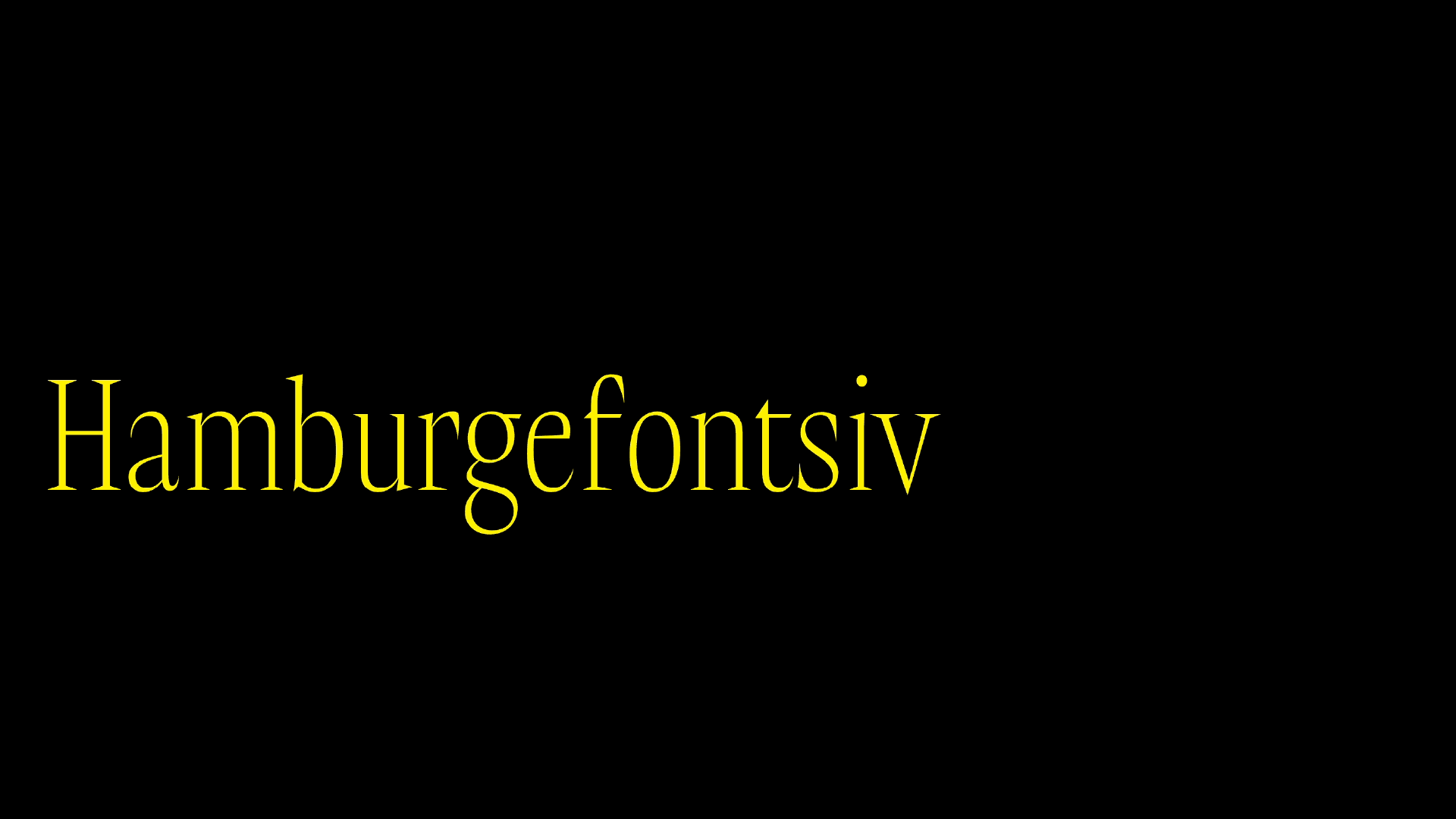
Immoment
Immoment was the result of an exercise in creating a contemporary serif typeface, and pays homage to the rich historical heritage of the Père Lachaise Cemetery in Paris, renowned for its remarkable collection of gravestones and mausoleums.
The typeface captures the timeless essence of the inscriptions found on the weathered gravestones, reflecting the craftsmanship and reverence of the past, while evolving into something more contemporary through experimentation with stroke endings and sharp serifs. This typeface embodies a fascinating juxtaposition, where the weight of history coexists with the meaning of its name, which denotes unimportance.
Immoment's significance extends beyond its historical inspiration. Its name signifies that the final outcome was not the primary intention of its creation. Instead, the true essence lies in the transformative process that created it—a journey of exploration and learning within the TypeParis program.
Immoment embraces the notion that the creative process itself holds immense value. It celebrates the dedication, collaboration, and experimentation that transpired throughout the program, allowing the typeface to evolve. The unimportance of the final outcome becomes a testament to the profound importance of the design process—the challenges faced, the knowledge gained, and the personal growth experienced in its creation.